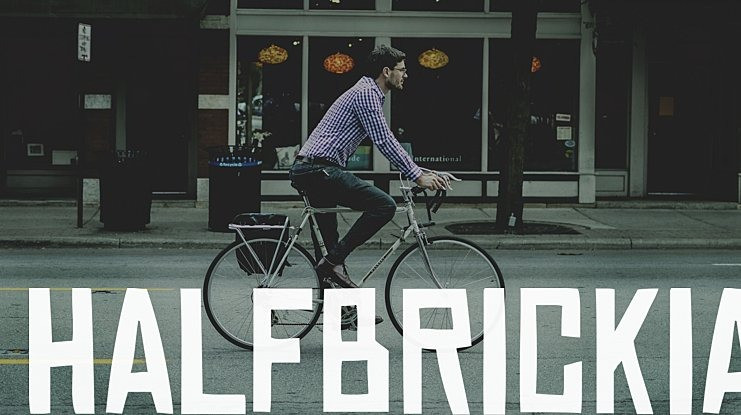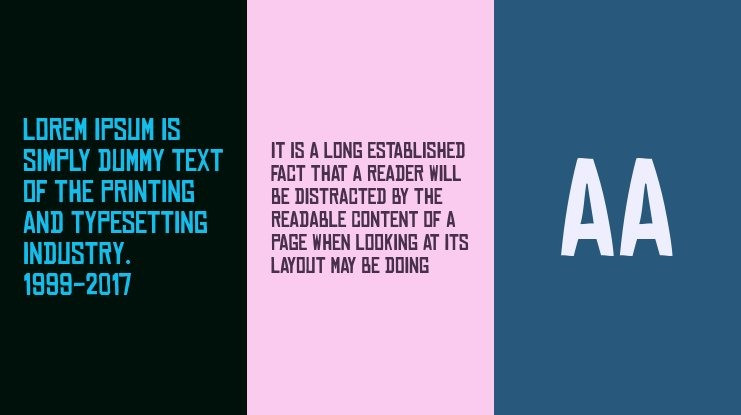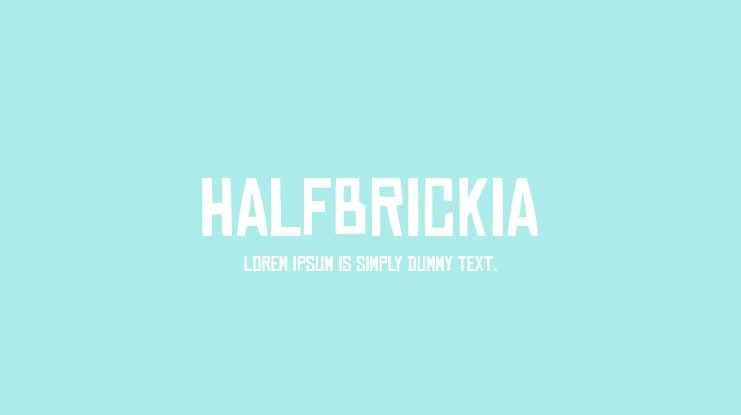
Halfbrickia Display Font. You can use it as a logo, badge, insignia, packaging, headline, poster, t-shirt/apparel, greeting card, and wedding invitation.